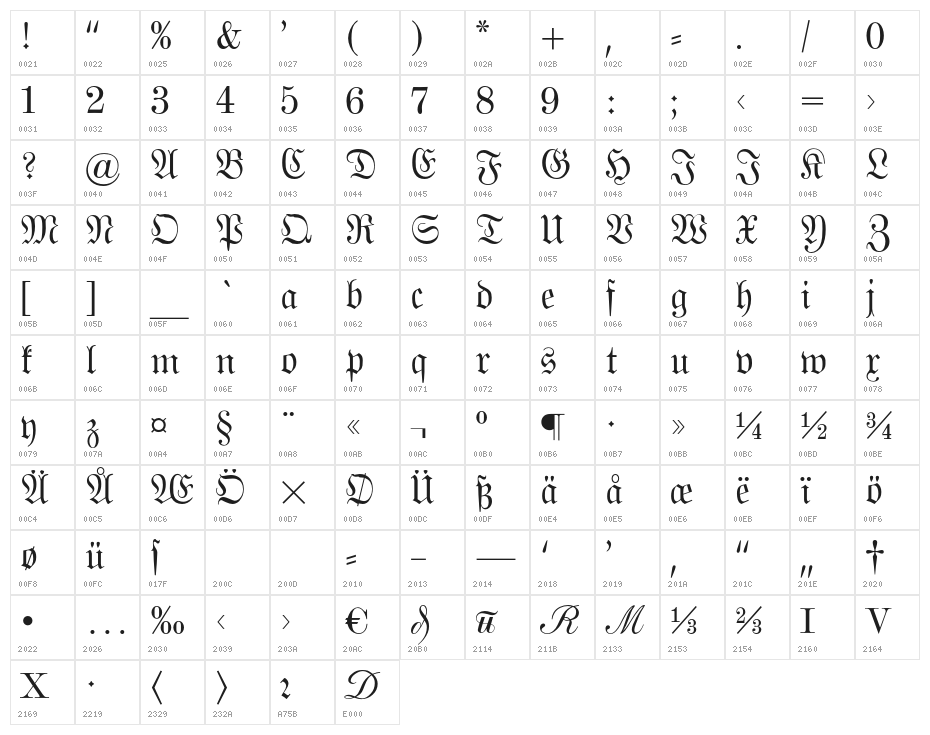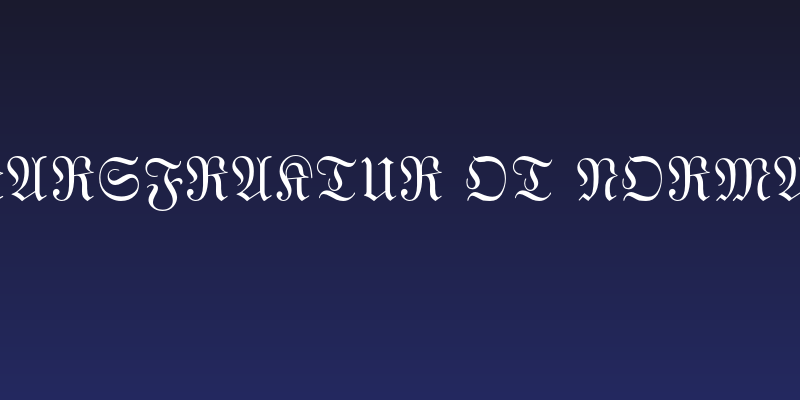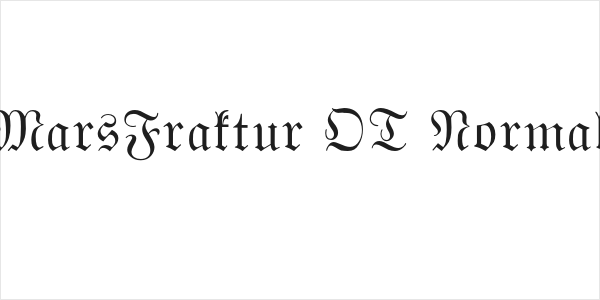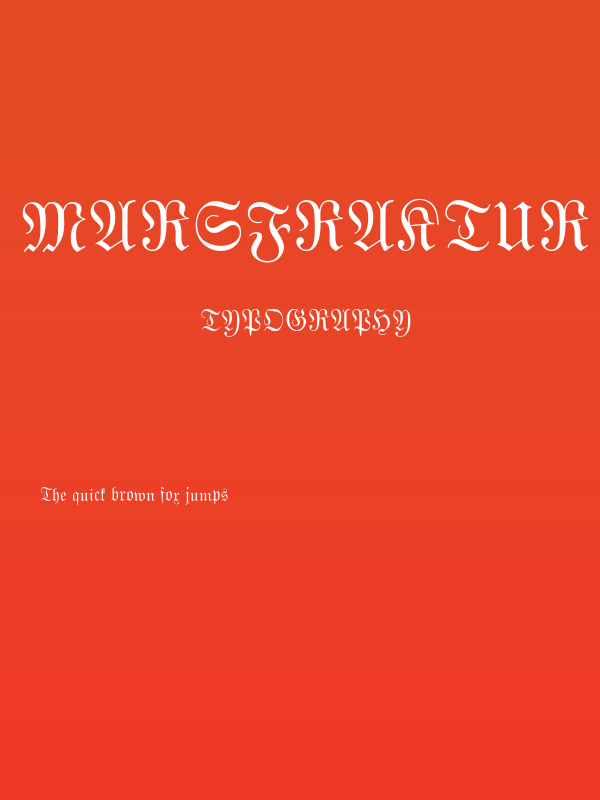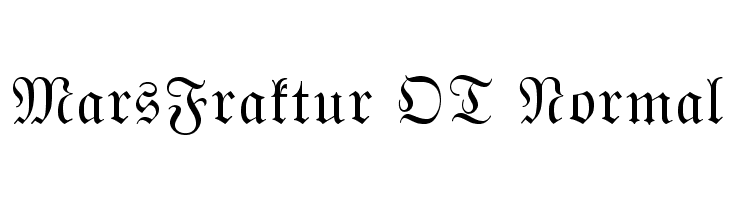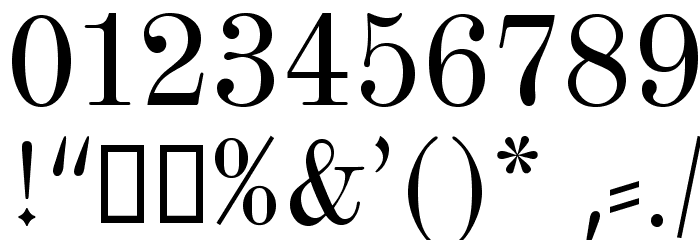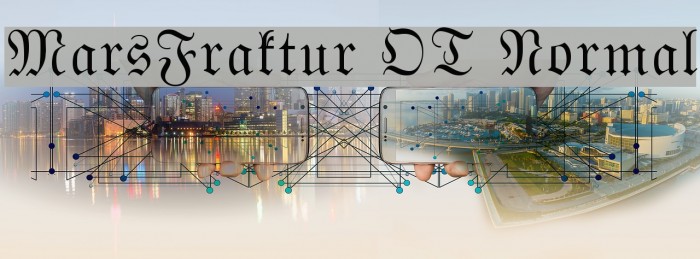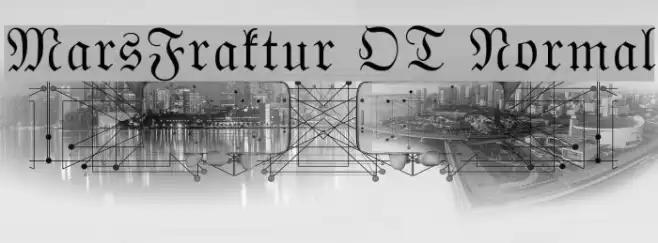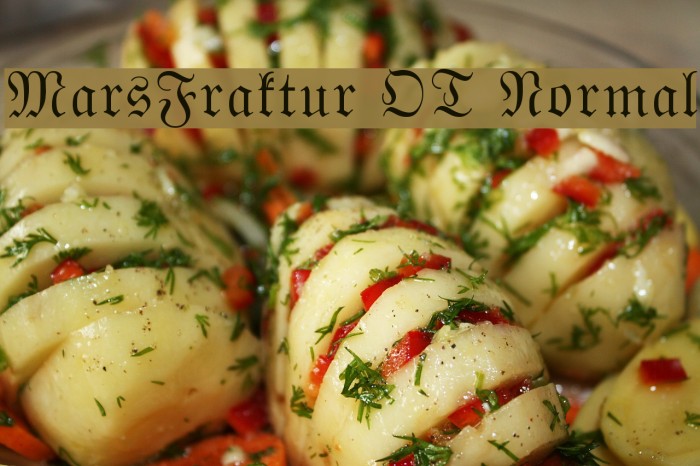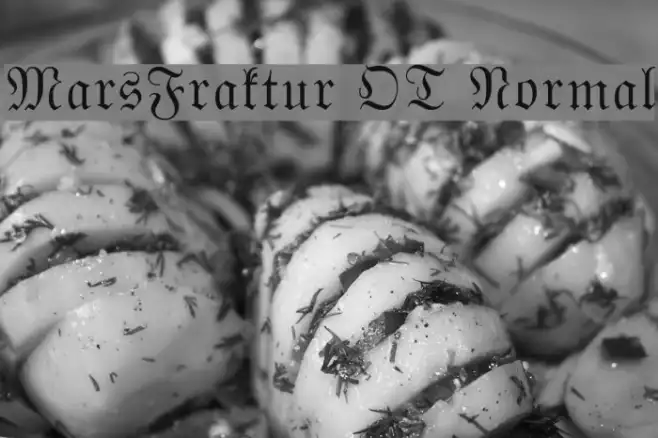
MarsFraktur OT Normal Font
MarsFraktur OT Normal Description
This font exudes a classic and historical charm, reminiscent of traditional Blackletter styles. The characters are intricately designed with sharp, angular strokes and elaborate curves, giving it a distinct medieval appearance. The uppercase letters are particularly ornate, featuring decorative flourishes that enhance their visual impact. The lowercase letters maintain a consistent style, with tall ascenders and deep descenders that add to the font's dramatic flair. The numerals are bold and clear, matching the overall aesthetic with their strong presence. Special characters are equally detailed, ensuring a cohesive look across all glyphs.
| Proposed Projects | Ideal for historical documents, certificates, book covers, or any project requiring a medieval or gothic aesthetic. |